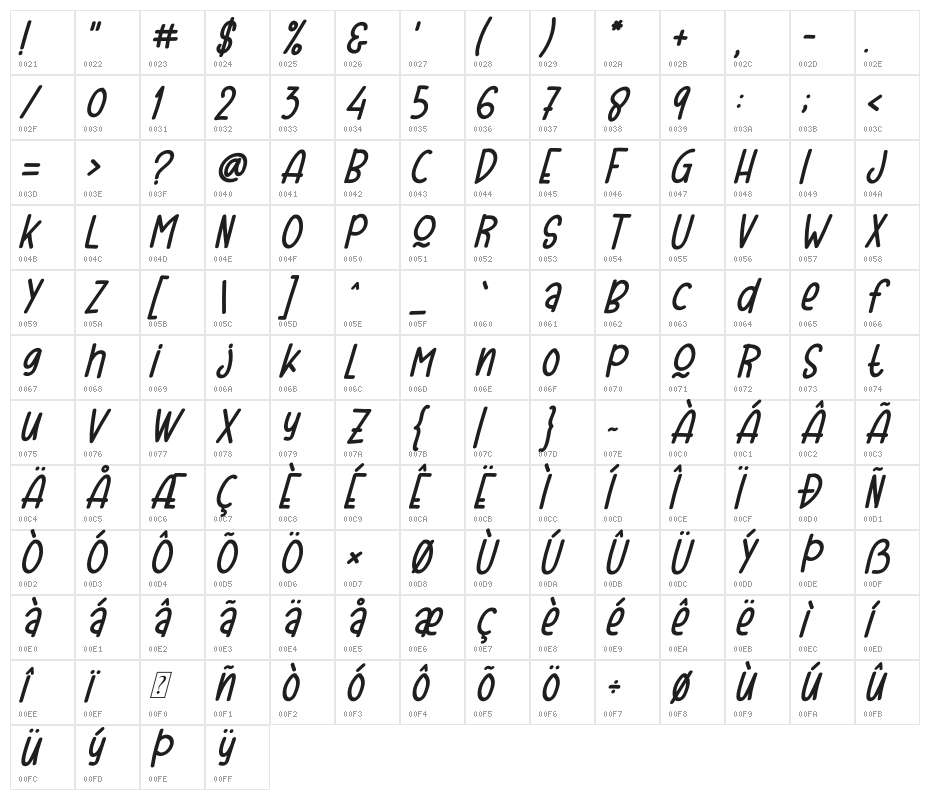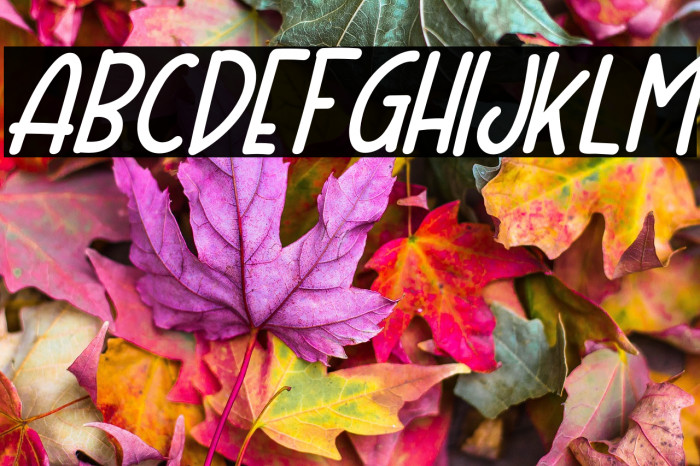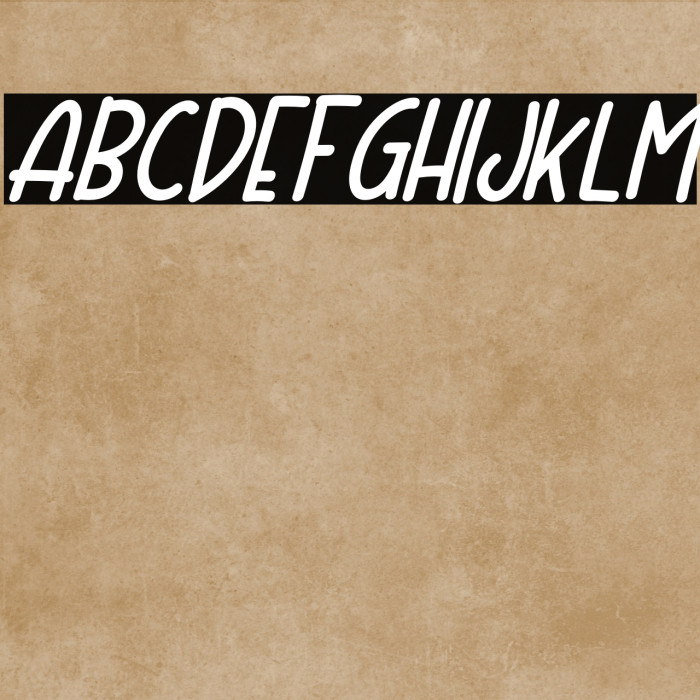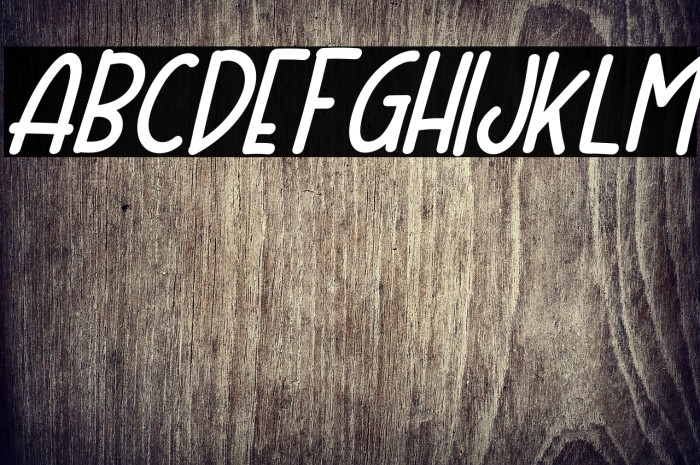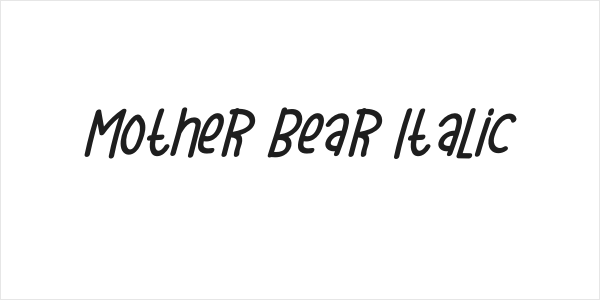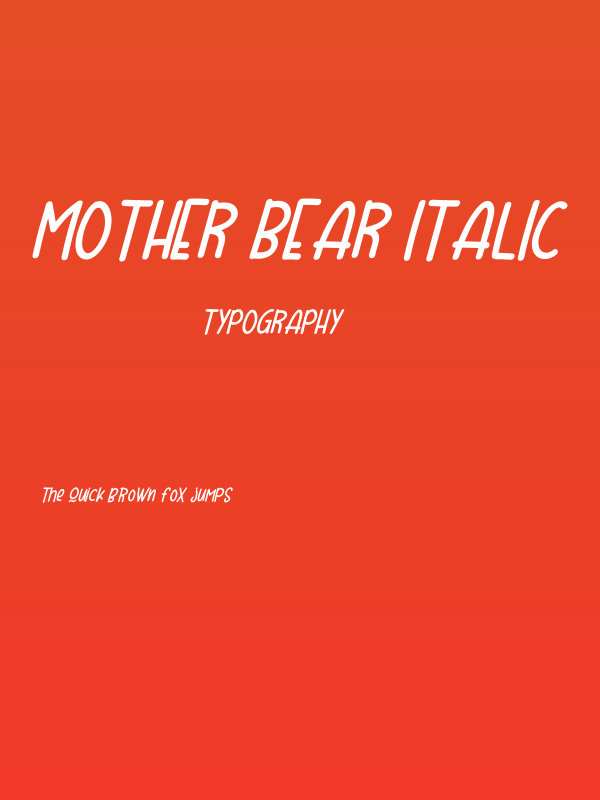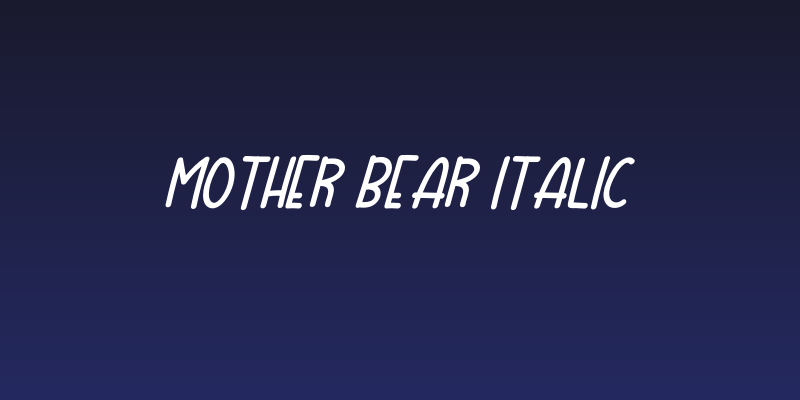
Mother Bear Italic Font
Mother Bear Italic Description
This font features a playful and dynamic handwritten style with a slight slant, giving it an italic appearance. The characters are bold and rounded, creating a friendly and approachable look. The uppercase letters are slightly taller than the lowercase, maintaining a consistent flow throughout. Numbers and special characters are designed to match the overall style, ensuring a cohesive appearance. The strokes are consistent in width, contributing to a uniform and balanced feel. This font is ideal for projects that require a personal touch, such as invitations, greeting cards, or informal branding.
| Use Case | Logos, Headlines, Informal Text |
| Proposed Projects | Ideal for invitations, greeting cards, informal branding, and playful designs. |